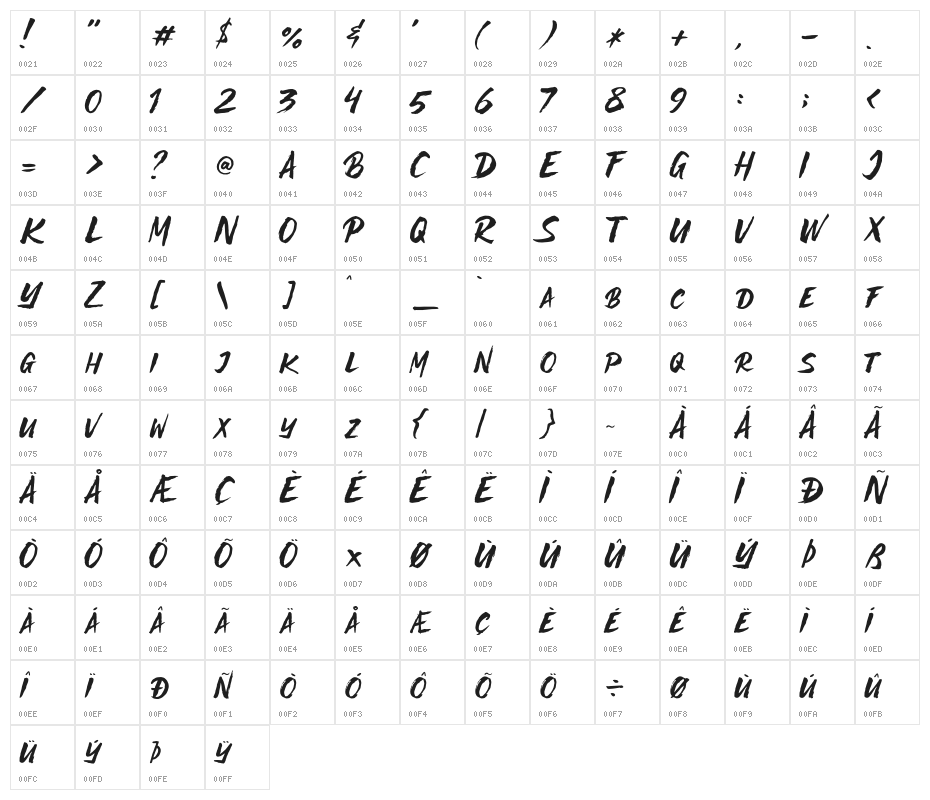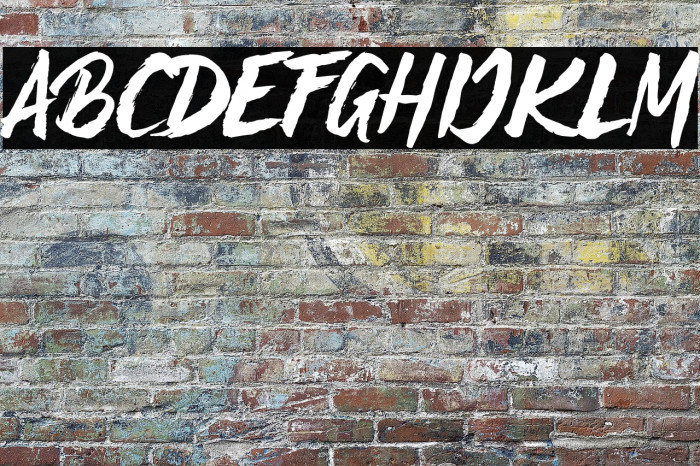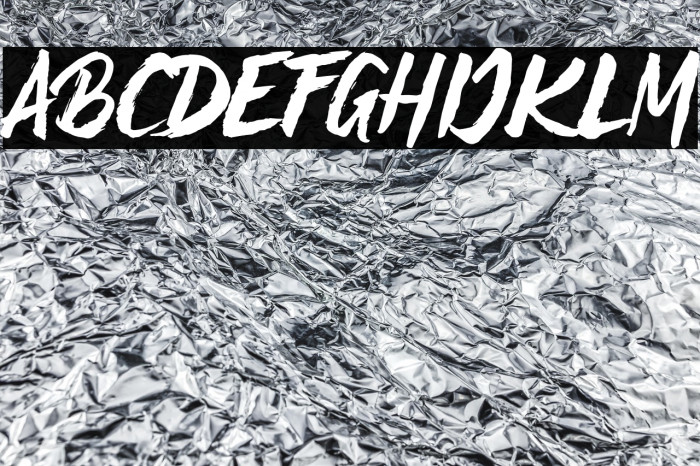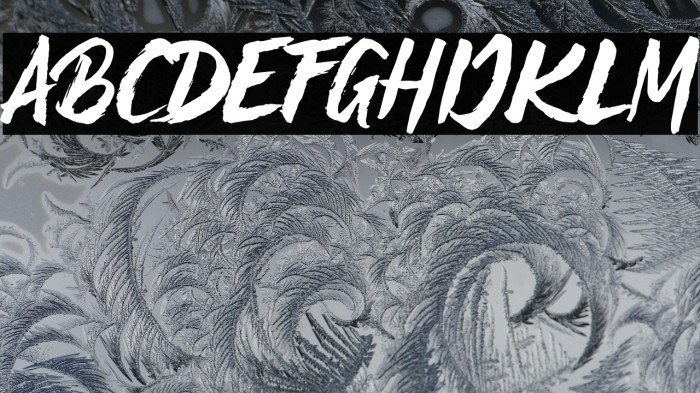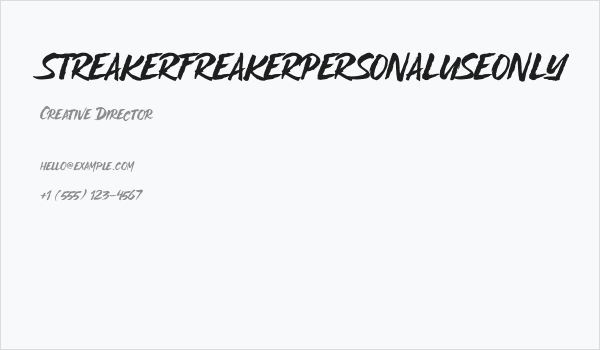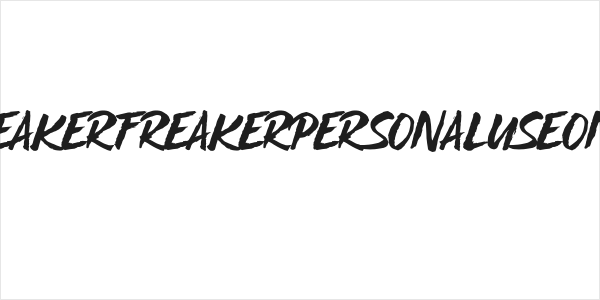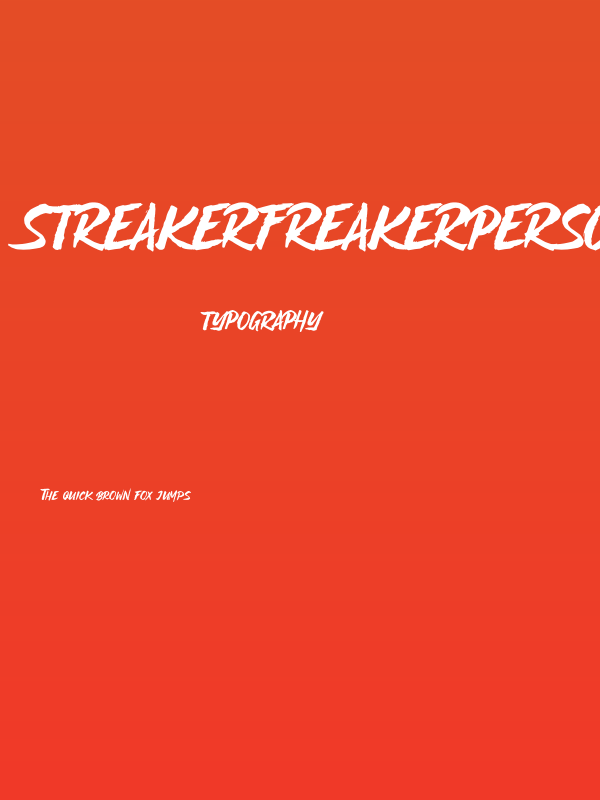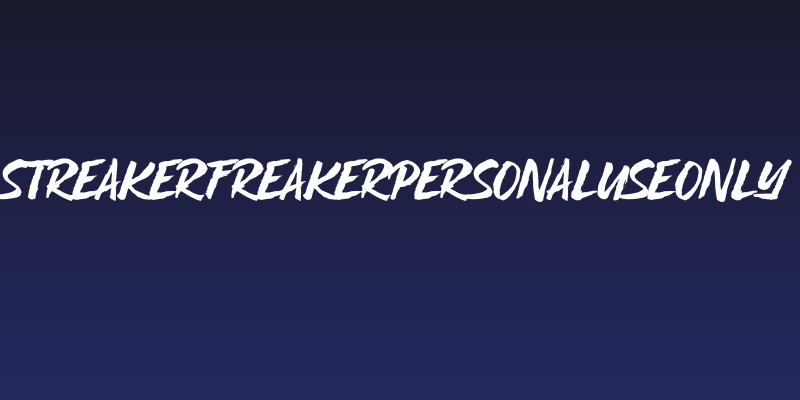
STREAKERFREAKERPERSONALUSEONLY Font
STREAKERFREAKERPERSONALUSEONLY Description
This font features a bold, brush-like style with a dynamic and energetic appearance. The strokes are thick and uneven, giving it a hand-painted feel that adds a sense of movement and spontaneity. The uppercase and lowercase letters maintain a consistent style, with sharp angles and a slightly slanted orientation, enhancing its expressive nature. The numbers and special characters follow the same aesthetic, ensuring a cohesive look across all elements. This font is ideal for projects that require a bold and artistic touch, such as posters, logos, and headlines.